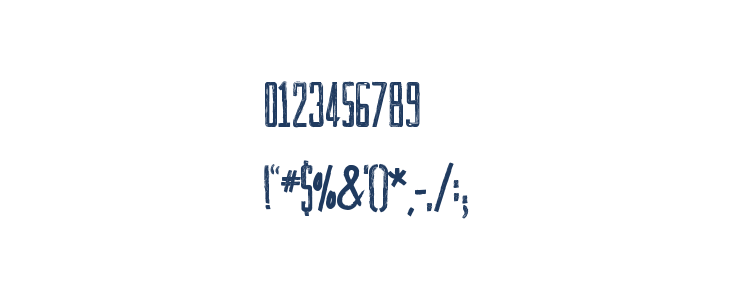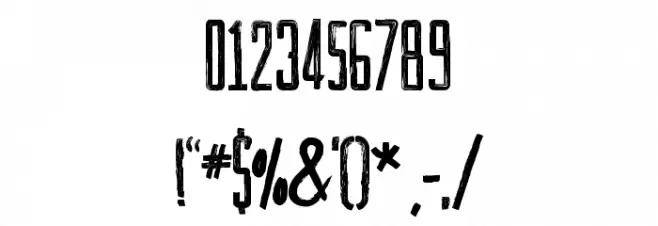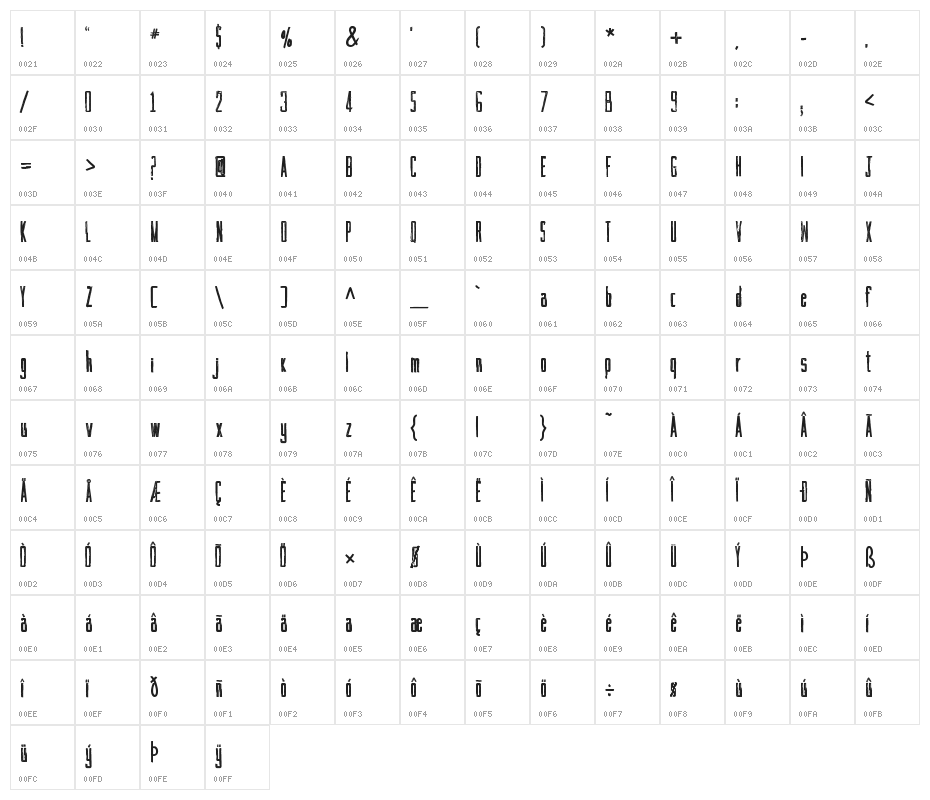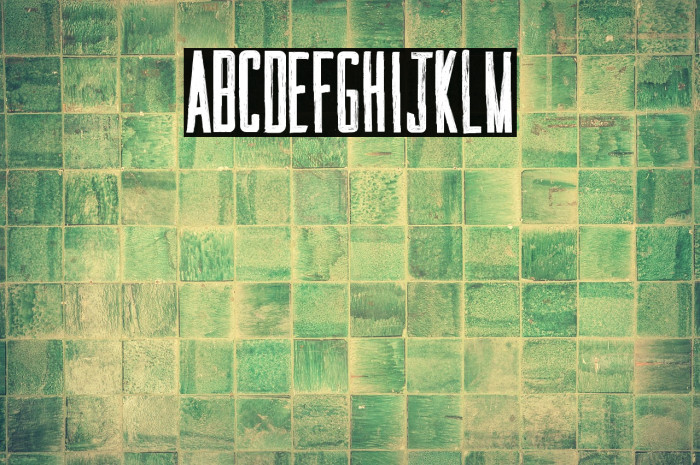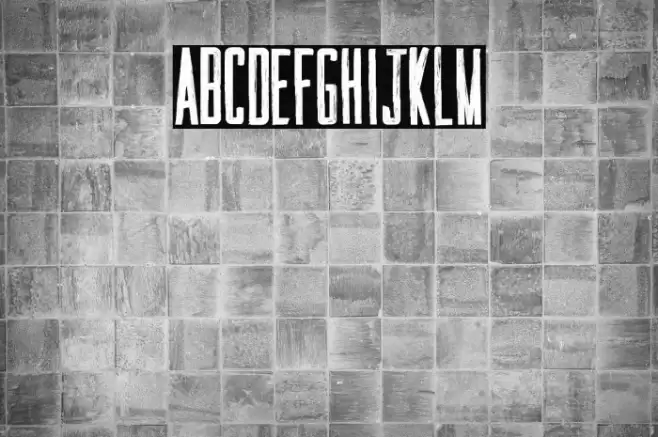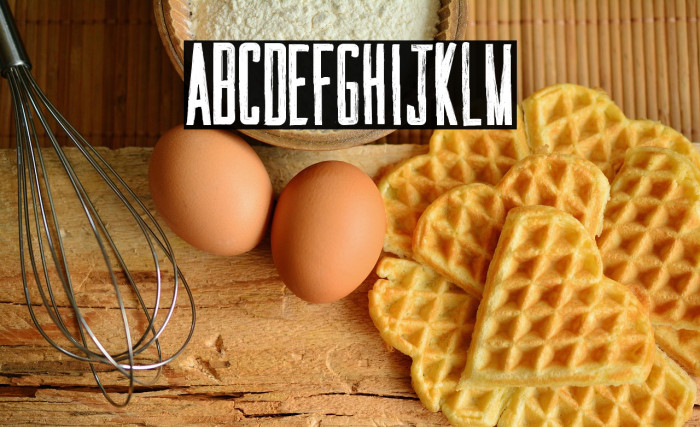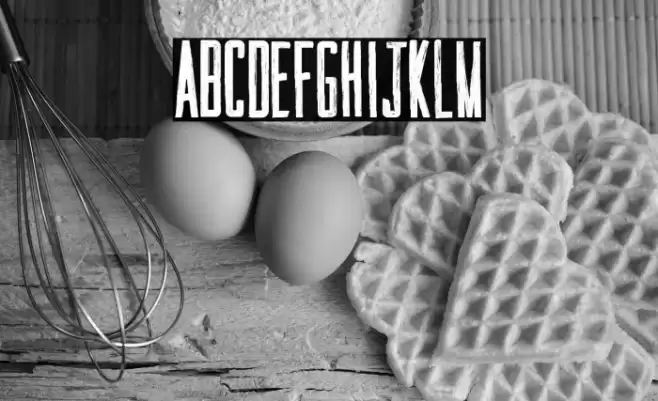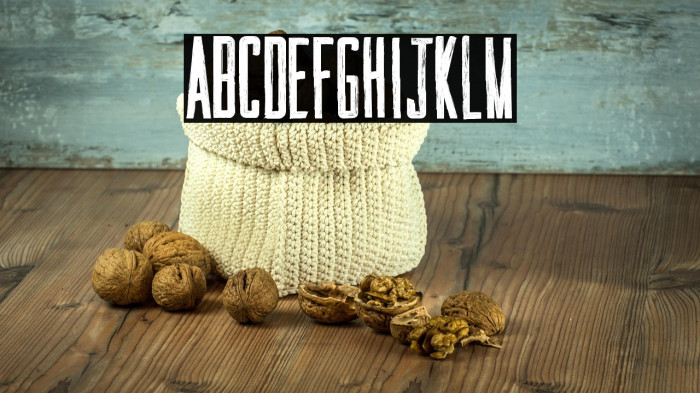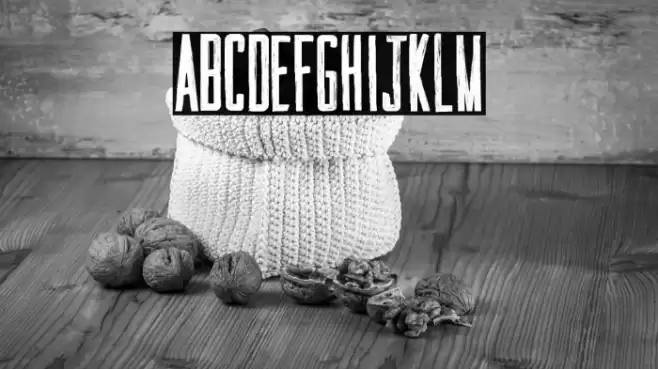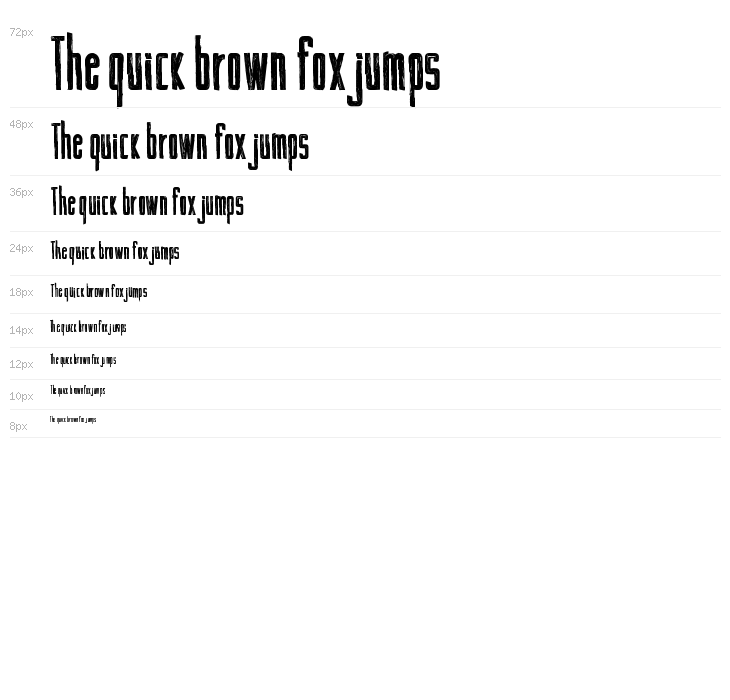
SUMMERTIMES Font
SUMMERTIMES Description
This font features a distressed, textured appearance that gives it a rugged and vintage feel. The uppercase and lowercase letters are bold and slightly condensed, with irregular edges that add to its worn-out look. The numbers and special characters follow the same style, maintaining a consistent aesthetic throughout. The font's unique character is perfect for projects that require a touch of nostalgia or a handcrafted vibe. Its bold presence makes it suitable for eye-catching designs.
| Proposed Projects | Ideal for vintage posters, retro-themed branding, album covers, and rustic signage. |